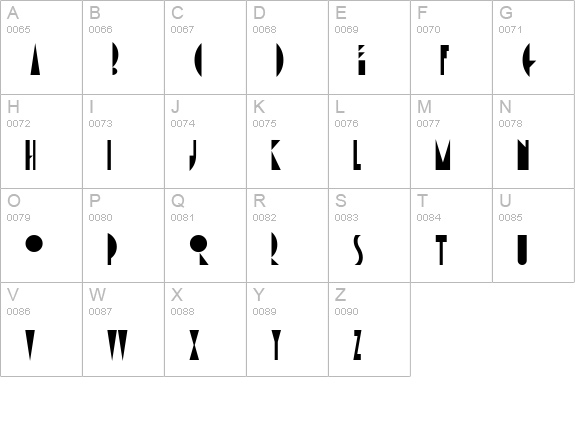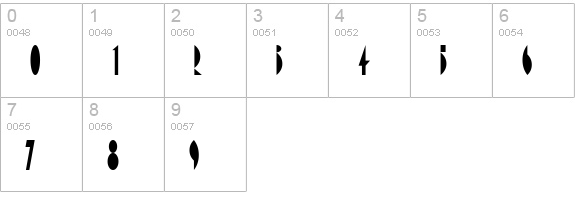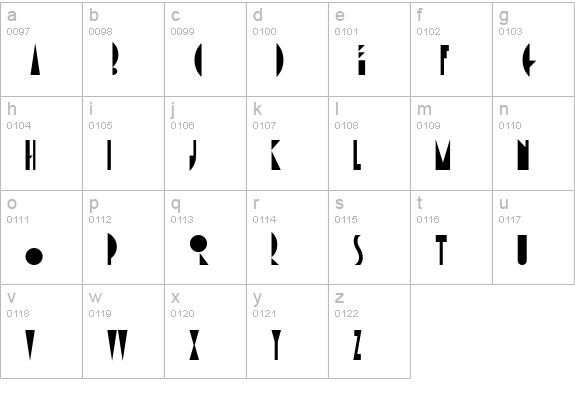
AmsterdamTangram Font Details
AmsterdamTangram font is a captivating and modern typeface that combines geometric shapes with a touch of artistic flair. Its sleek lines and innovative design make it the perfect choice for projects that require a contemporary and sophisticated look. With its unique character set and versatile styling options, AmsterdamTangram font is sure to make a bold statement in any design. Best of all, AmsterdamTangram font is completely free to use and download. You can easily access this stunning font at FontsMarket.com, where you can explore its full potential and incorporate it into your projects with ease. Don't miss out on the opportunity to elevate your designs with the stylish and dynamic AmsterdamTangram font - download it now and let your creativity soar!